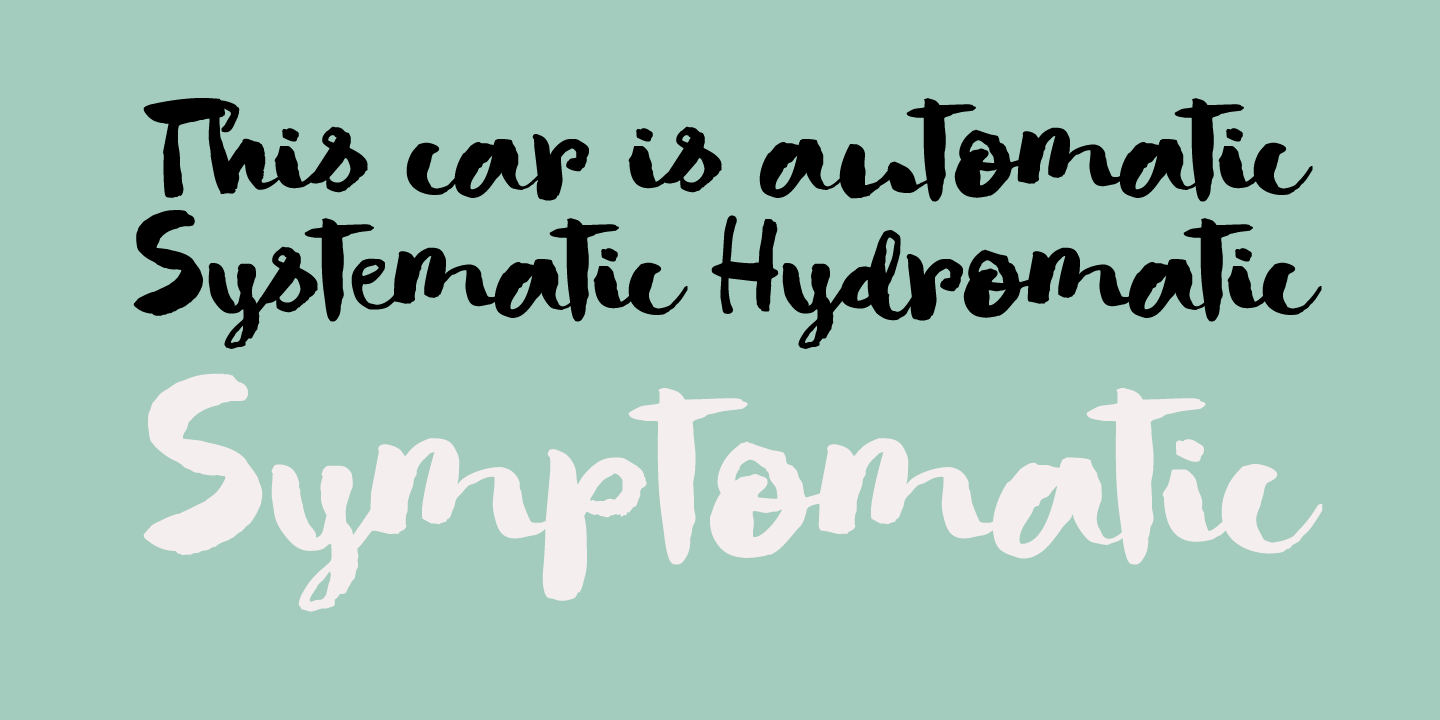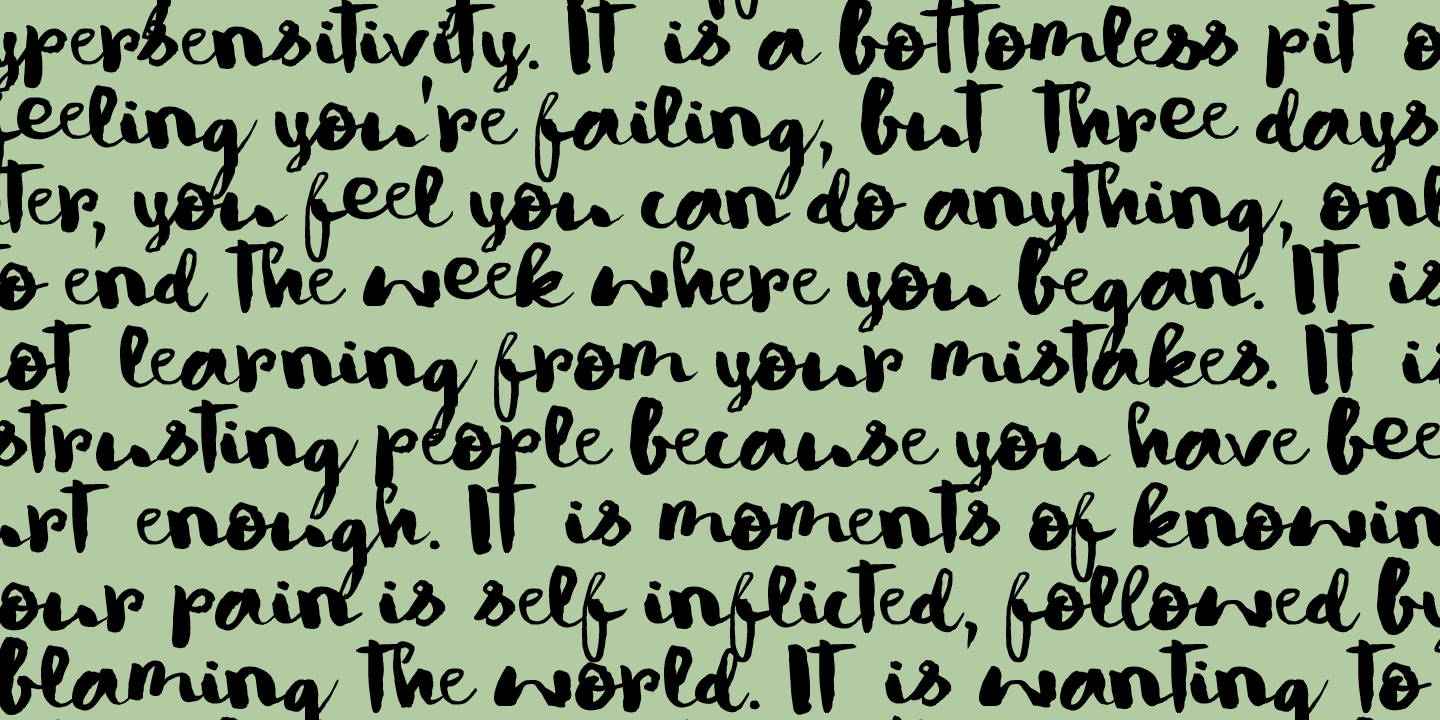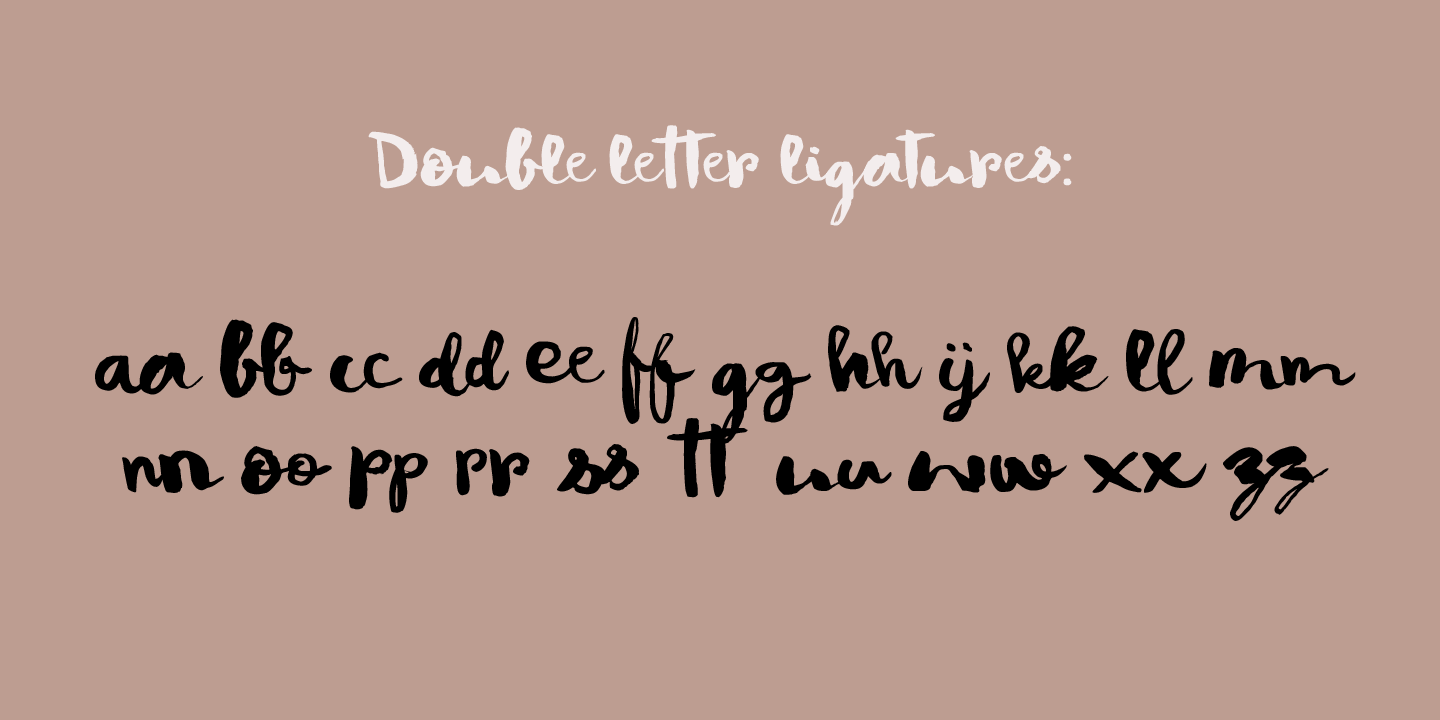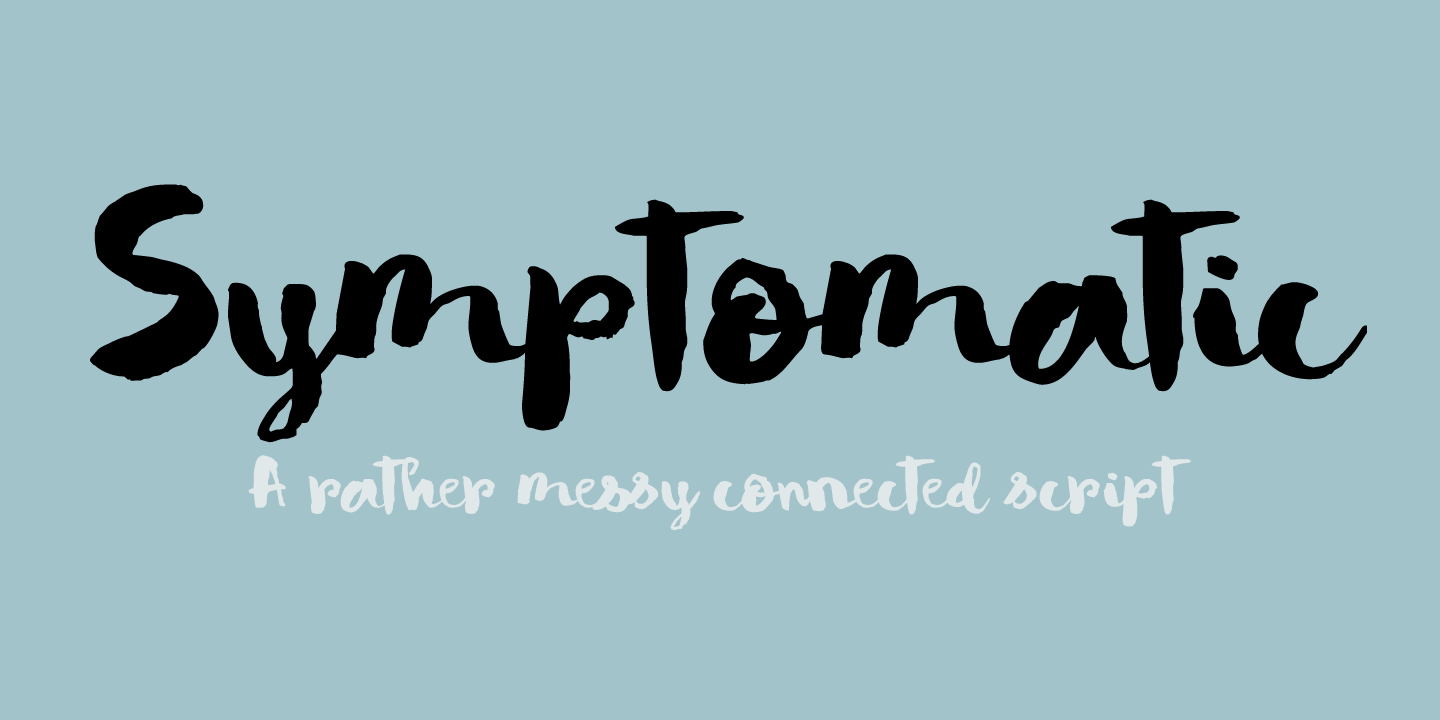
No, rest assured – I am not ill. I just liked the letter combination of Symptomatic! Symptomatic is a messy connected brush script. Use if for your book titles, posters and product packaging. Comes with double letter ligatures and a whole lotta diacritics.…